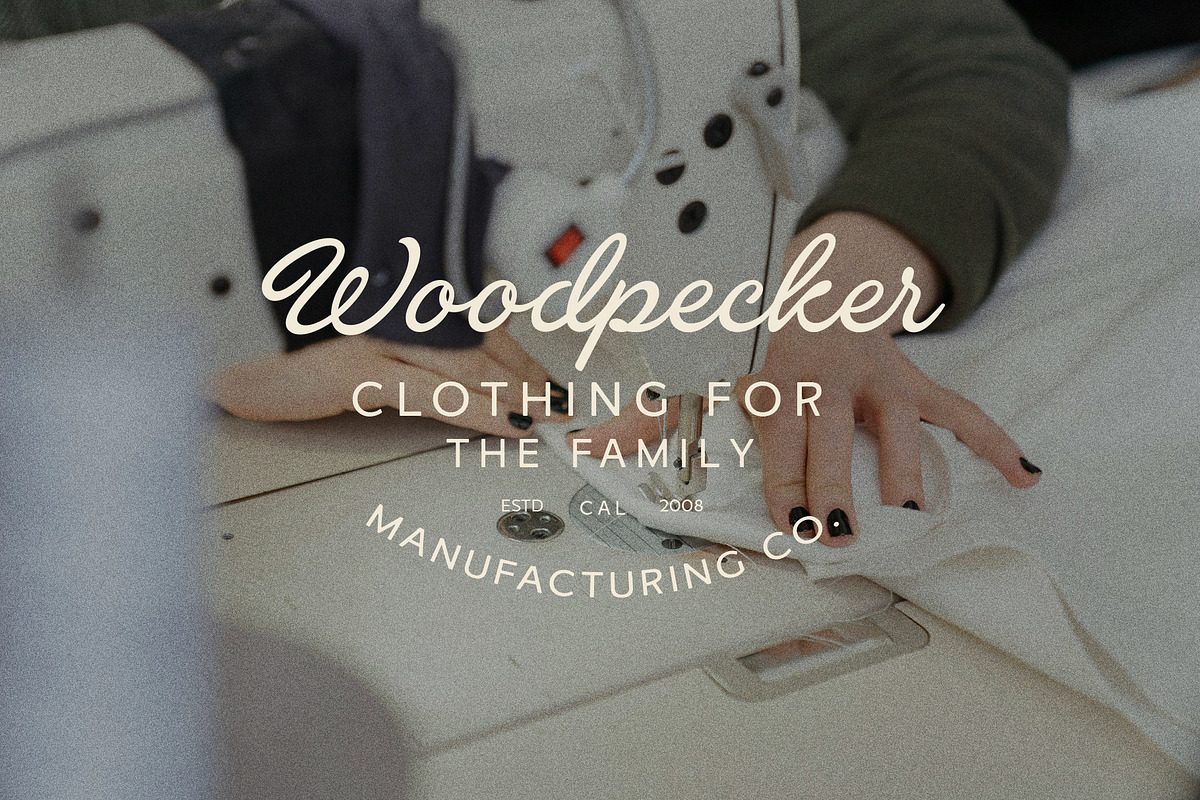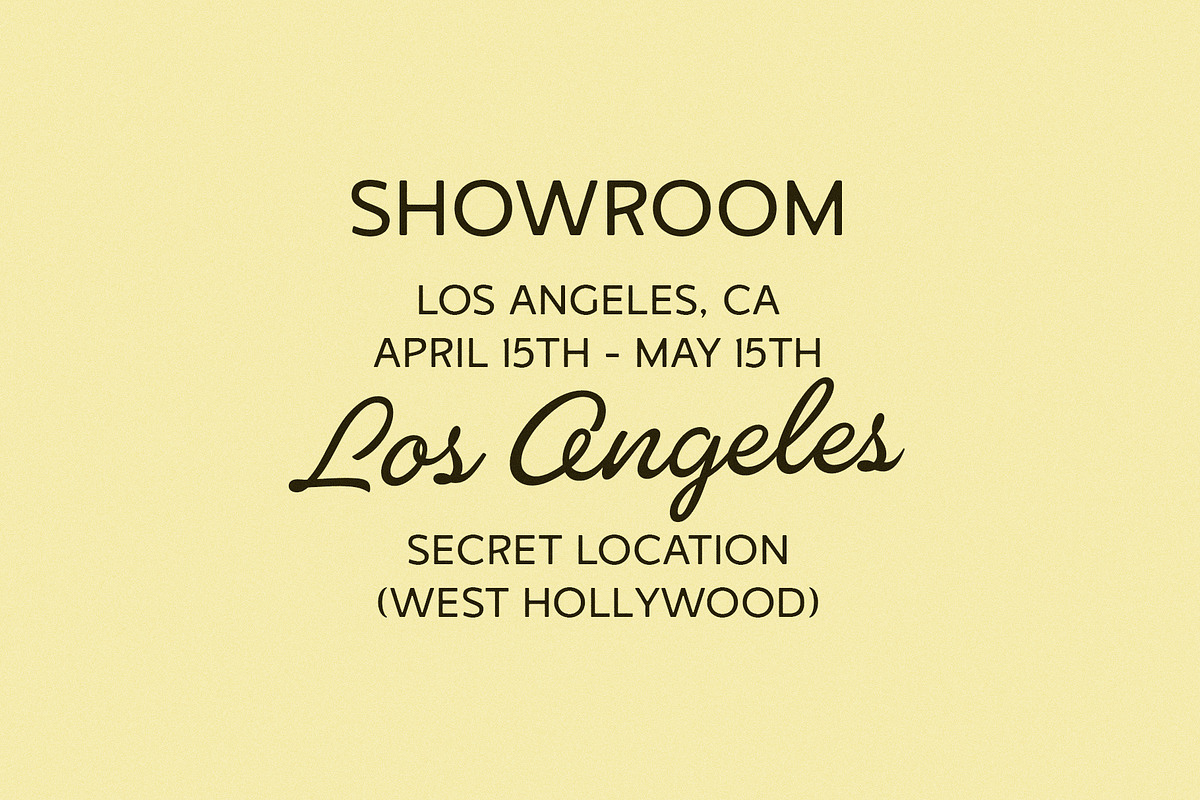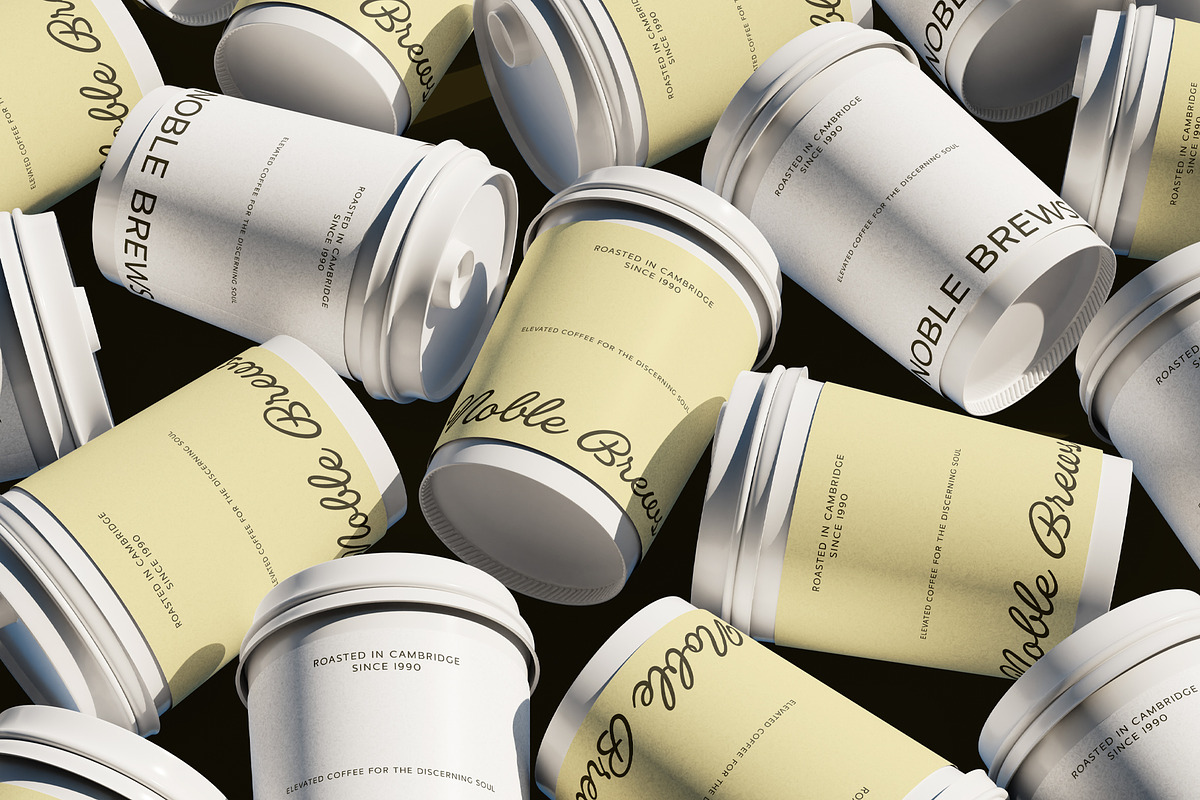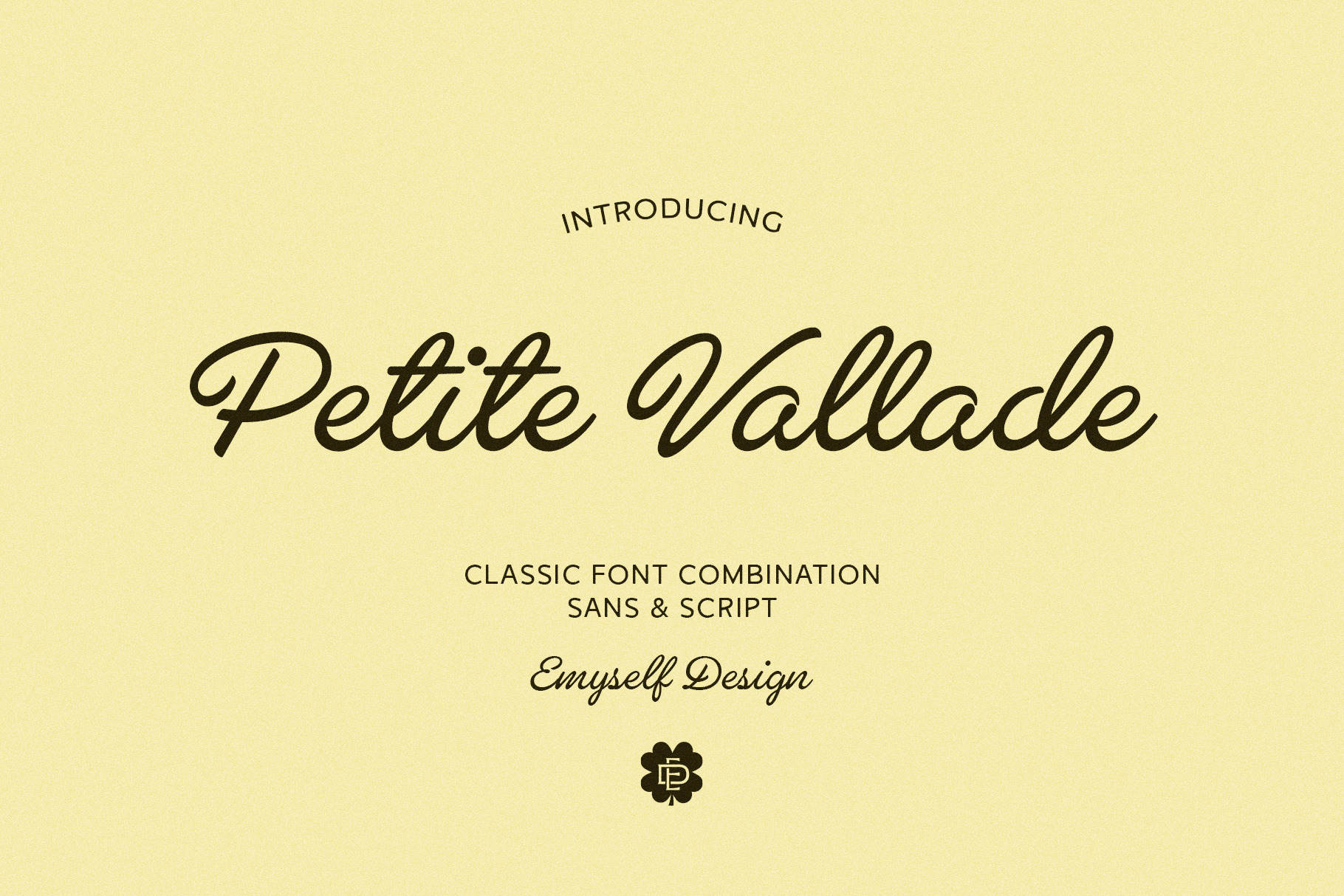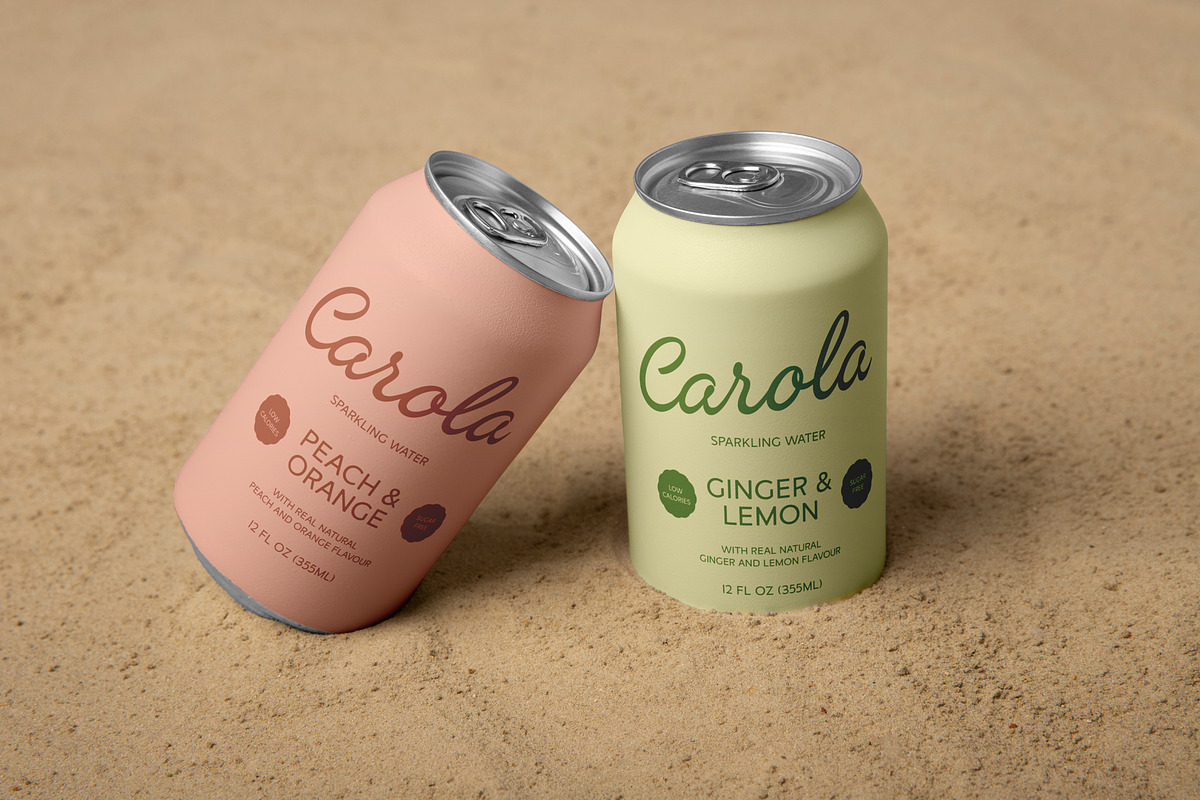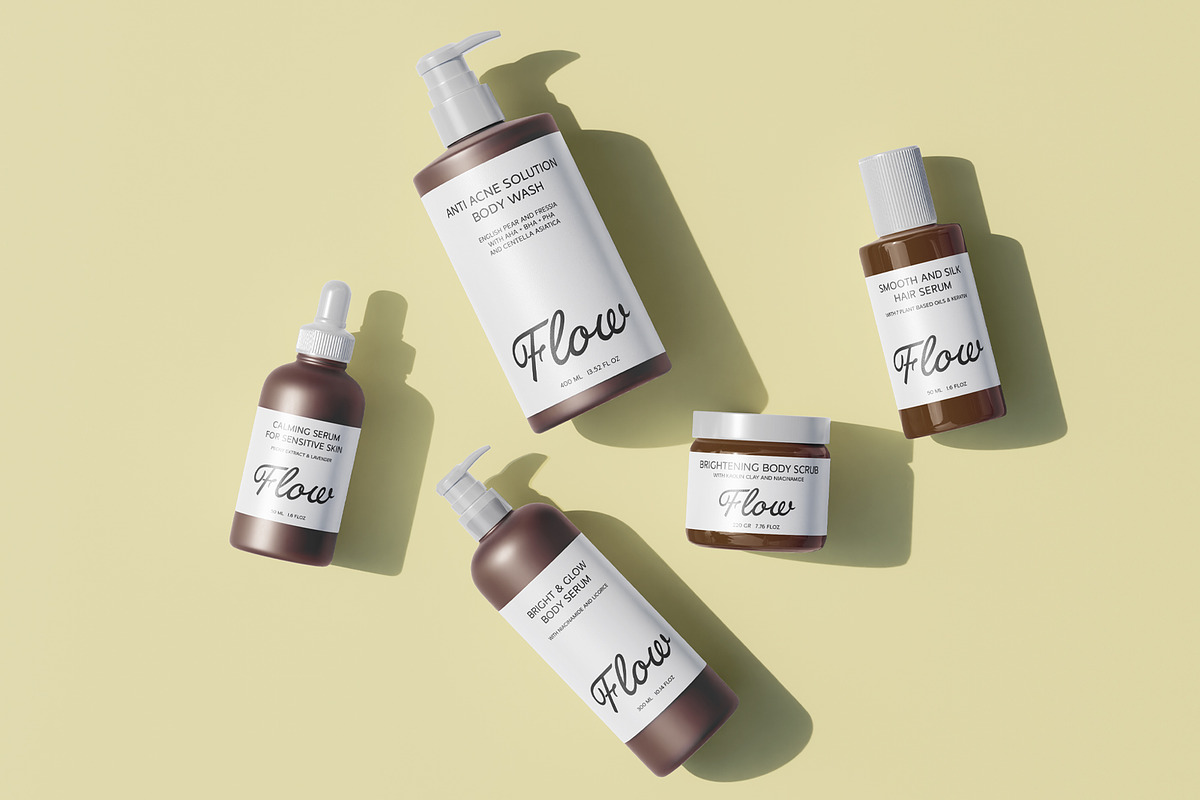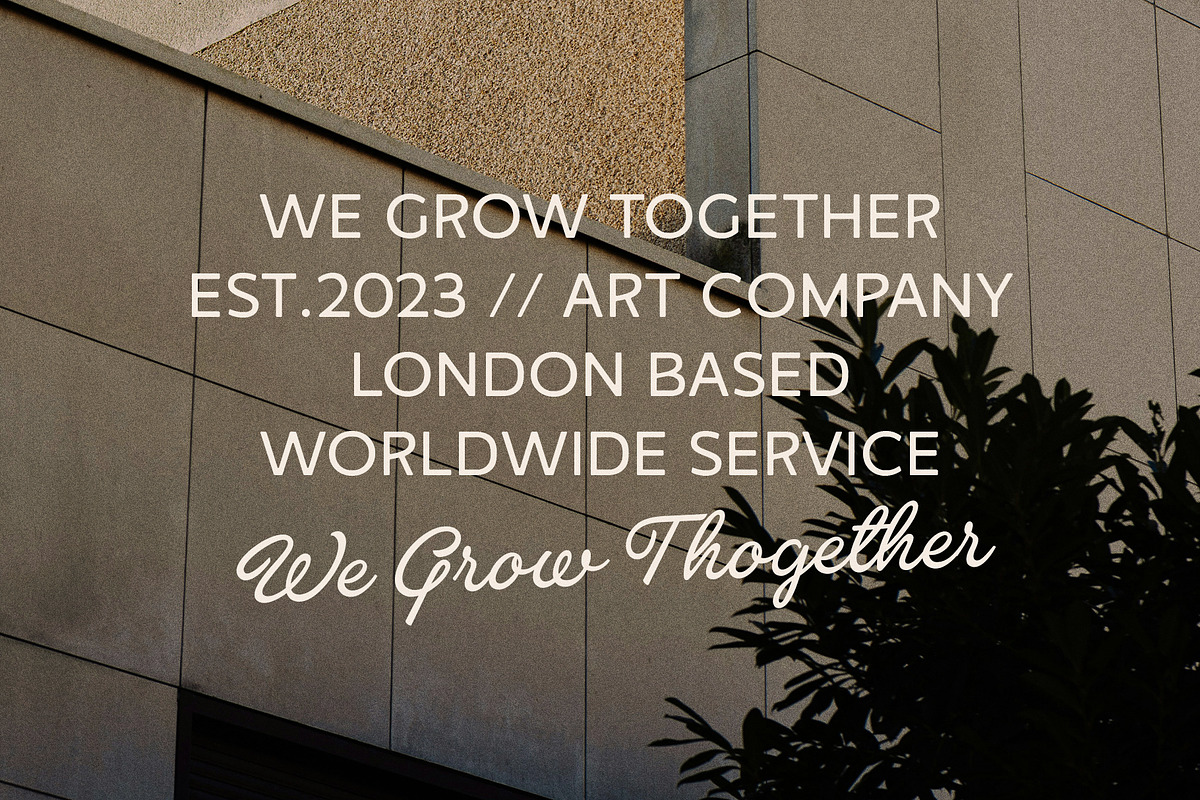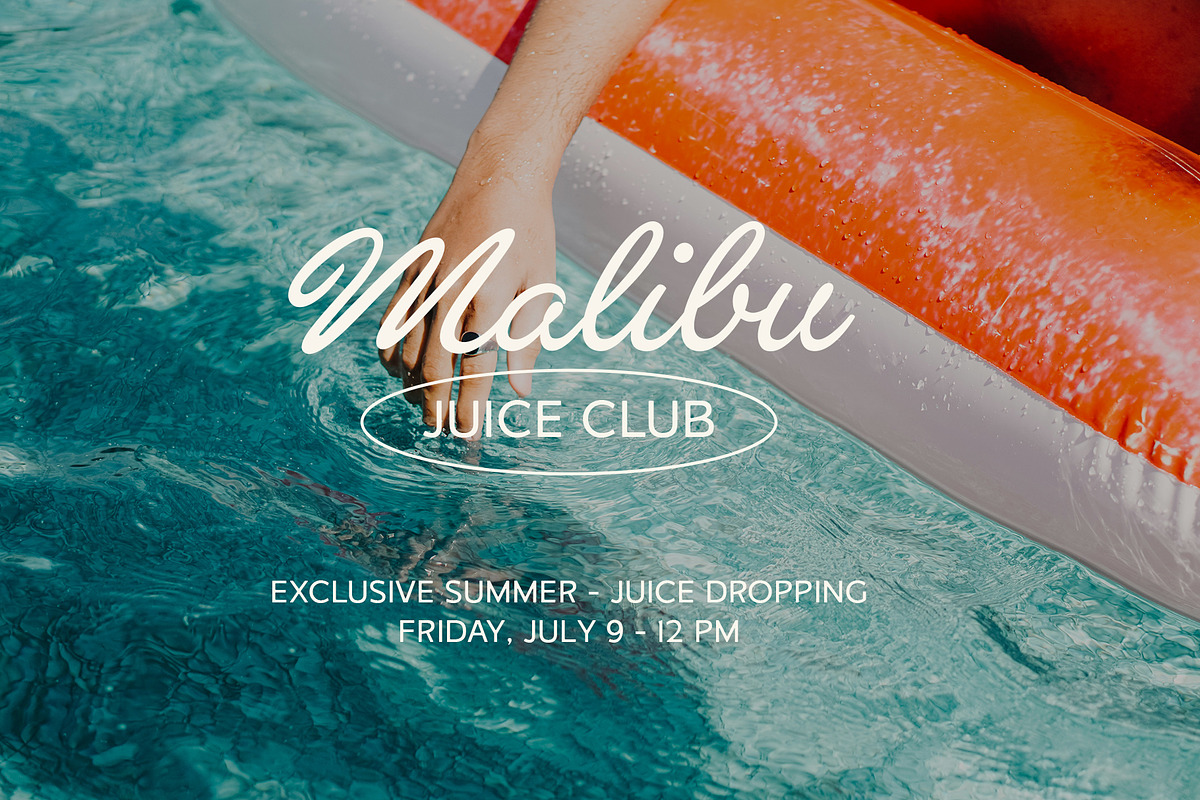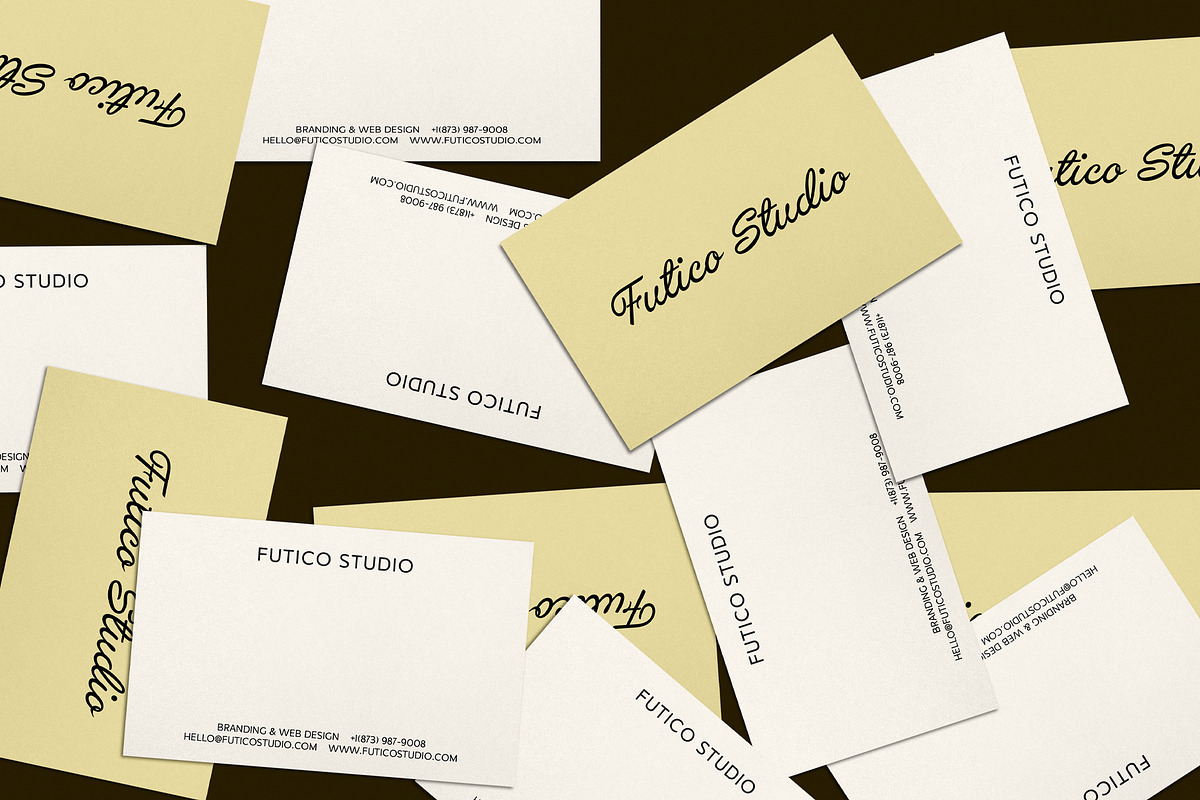
ED Petite Vallade - Font Duo
ED Petite Vallade is a charming font duo pairing an elegant handwritten script with a soft, rounded sans serif — designed for brands that want warmth and sophistication. Perfect for boutique businesses, café branding, wedding stationery, beauty packaging, and feminine product labels. Includes multilingual support and a full set of punctuation for versatile use across print and digital projects.
Logo design
Branding projects
Social media content
Packaging
Invitations & quotes
Editorial layoutsidale
The script comes with ligatures and stylistic alternates, helping you create more natural and beautiful lettering compositions.
ED Petite Vallade is made to be simple to use, flexible, and visually pleasing—making it a reliable choice for designers who want a classic look with a modern softness.